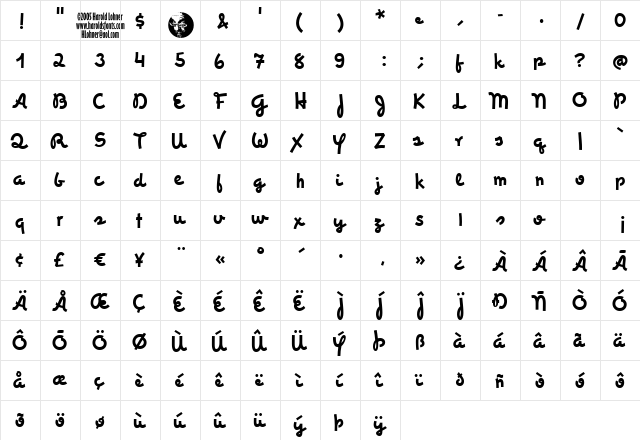
Espangles Regular
Design Context for Espangles Typeface
Espangles is a composed and adaptable typeface that performs quietly and consistently across a wide range of design contexts.